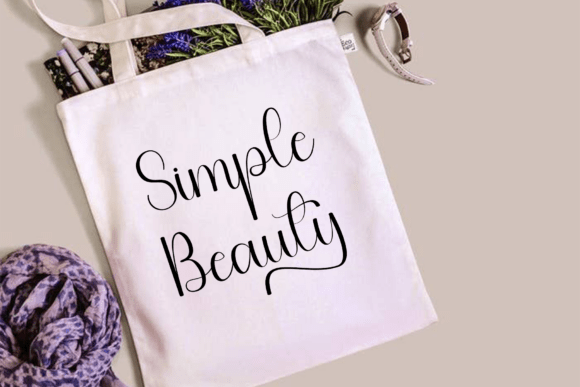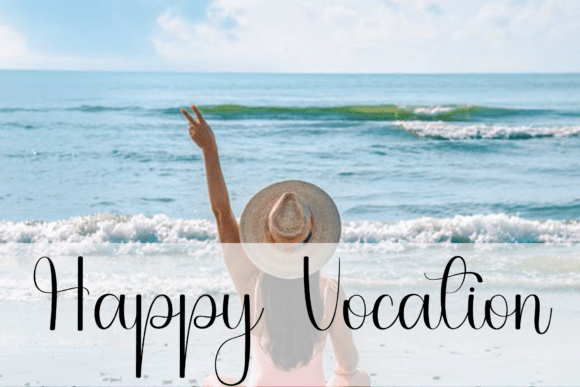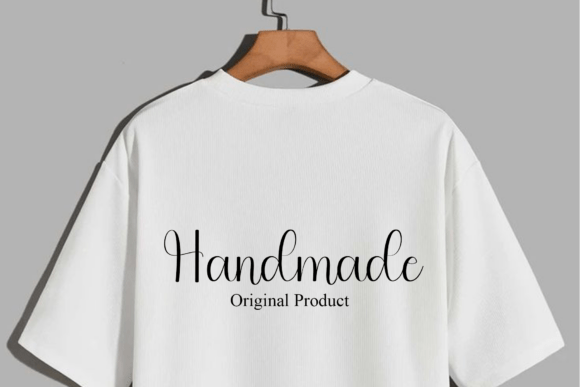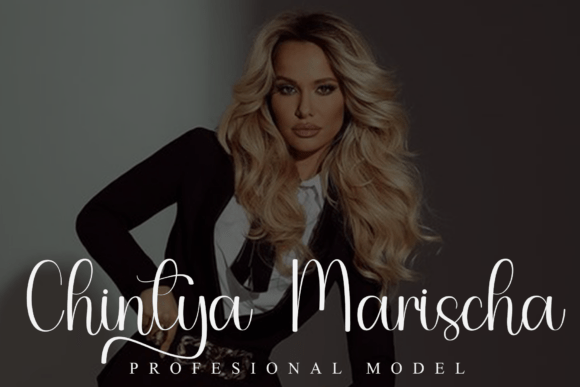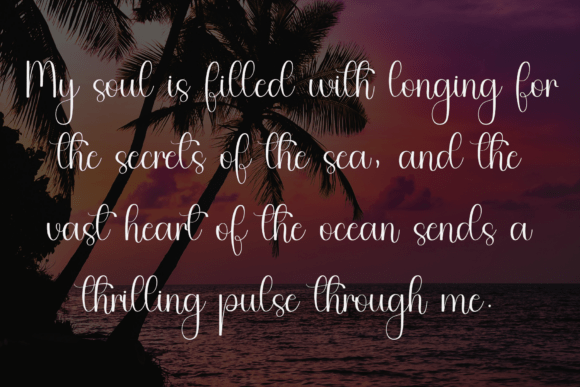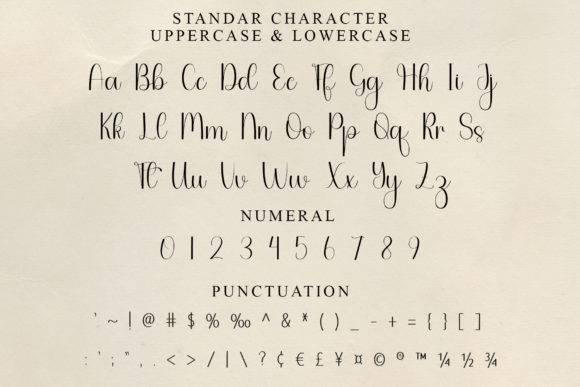
Discover the Magic of Holiday Beach Font
There’s nothing quite like the feeling of being stuck in a creative rut, until suddenly, the perfect font pops up and sparks a wave of inspiration. For many designers, this is exactly what happened when they stumbled upon the charming Holiday Beach Font. This sweet and friendly handwritten font is the perfect companion for any design project, from whimsical greeting cards to lively event invitations.
As its name suggests, Holiday Beach Font is all about capturing the carefree essence of a seaside getaway. Its natural and unique style makes it incredibly versatile, allowing designers to let their imagination run wild and create truly one-of-a-kind designs. Whether you’re a seasoned pro or just starting out, this font is a valuable addition to any design toolkit.
Holiday Beach Font Key Features
- Unique Characteristics: Holiday Beach Font features a unique, hand-drawn design with a beach-inspired theme, making it perfect for summer-themed projects.
- Character Set: The font includes a wide range of characters, including uppercase and lowercase letters, numbers, punctuation marks, and special characters.
- Style Variations: Holiday Beach Font comes in three different styles: Regular, Italic, and Bold, offering flexibility for various design needs.
Holiday Beach Font Review
As a designer, I’ve had the chance to work with various fonts, and my experience with the Holiday Beach Font was…interesting. ✨
- Unique and playful vibe: The font has a distinctive, beachy feel that can add a lot of personality to your designs.
- Good for casual, creative projects: If you’re working on a brochure, poster, or other material that needs a laid-back, fun tone, the Holiday Beach Font might be a good choice.
- Not ideal for formal projects: The font’s playful nature makes it less suitable for formal, professional materials like business reports or academic papers.
- May be too busy for some designs: The font’s ornate, cursive style can be overwhelming if not used thoughtfully.
- Limited flexibility: The font’s unique style may not be easily adaptable to different design elements or color schemes.
Overall, the Holiday Beach Font is a fun, creative choice for casual projects, but it may not be the best fit for more formal or complex designs. ⚠️ It’s a good addition to any designer’s toolkit, but it’s essential to use it thoughtfully and in context.
To get the most out of the Holiday Beach Font, try combining it with other beach-themed graphics and colors to create a cohesive look. You can also use it to add a touch of whimsy to your designs.
The Holiday Beach Font is perfect for designing:
- Beach-themed party invitations
- Summer-themed social media posts
- Travel brochures and flyers
Alternatives to Holiday Beach Font
Cream Soda is a fun, casual font suitable for summer-themed projects, food labels, and children’s products. It has a similar playful feel to Holiday Beach Font but with a more rounded and soft appearance.
Comparison: Cream Soda has a more relaxed, vintage vibe compared to the more modern and elegant feel of Holiday Beach Font.
Seaside Script
Seaside Script is a beautiful, handwritten font perfect for invitations, wedding stationery, and beach-themed branding. It has a similar nautical feel to Holiday Beach Font but with a more elegant and sophisticated appearance.
Comparison: Seaside Script has a more refined and polished look compared to the more casual feel of Holiday Beach Font.
Siesta
Siesta is a modern, sans-serif font ideal for digital projects, logos, and websites. It has a similar clean and minimalist feel to Holiday Beach Font but with a more geometric and modern appearance.
Q: What is the recommended font size for the Holiday Beach Font?
The recommended font size for the Holiday Beach Font varies depending on the application and intended use. As a general guideline, use font sizes between 12pt and 24pt for body text, and 36pt to 48pt for headings. You can adjust the font size to suit your design needs, but be mindful of readability and legibility.